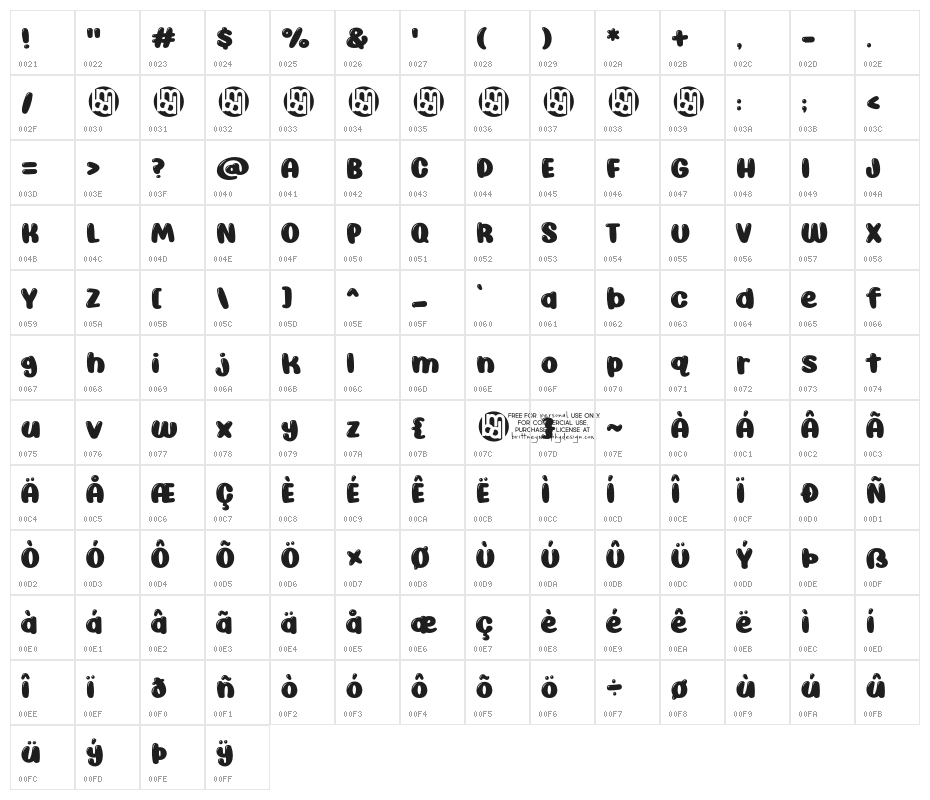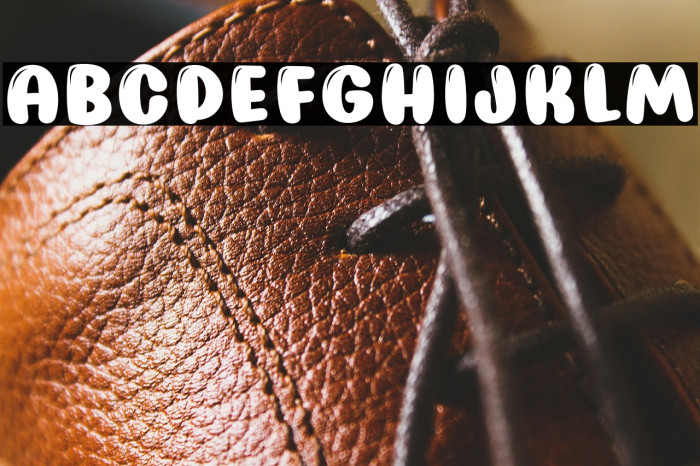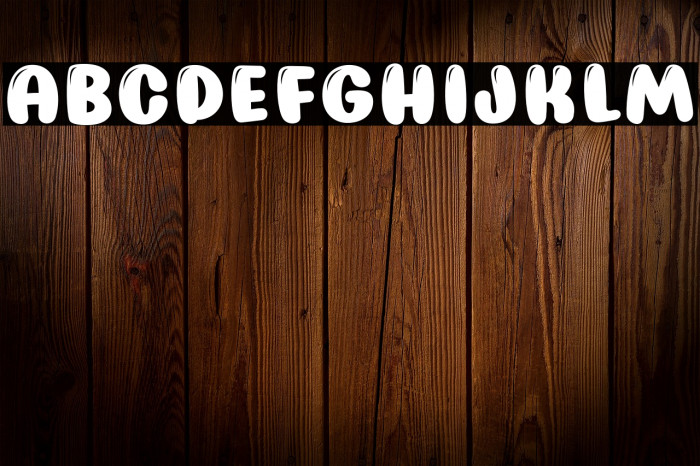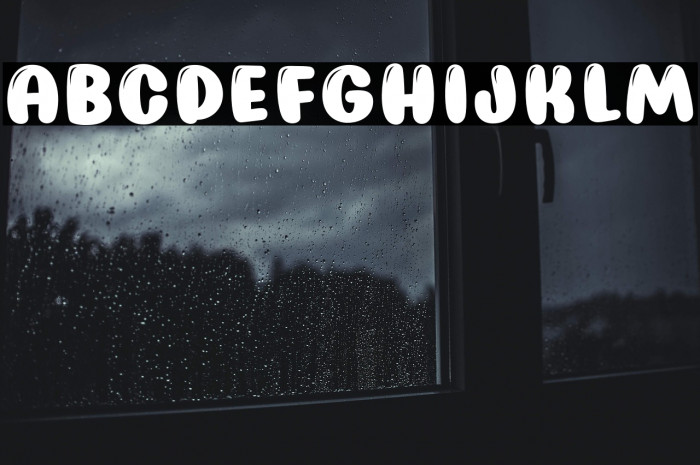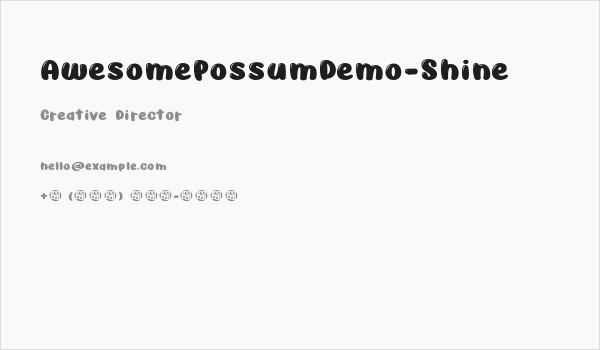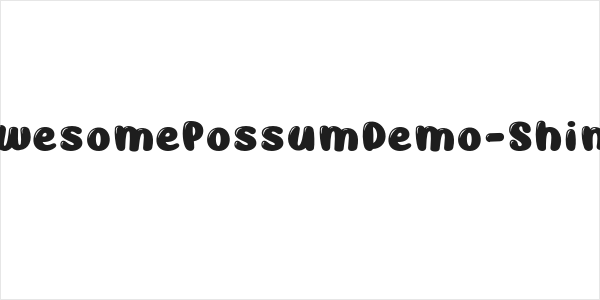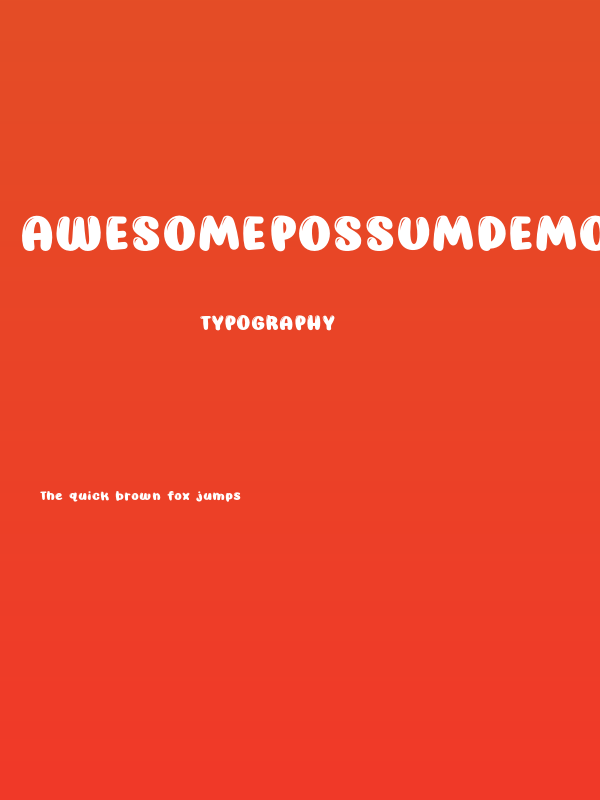
AwesomePossumDemo-Shine Font
AwesomePossumDemo-Shine Description
This font features a playful and bold design with rounded, bubbly characters that exude a sense of fun and whimsy. The letters are thick and have a slightly uneven stroke, giving them a hand-drawn appearance. The uppercase and lowercase letters maintain a consistent style, with the lowercase being slightly more compact. The numbers and special characters follow the same playful aesthetic, making the font suitable for creative and informal projects. The overall look is eye-catching and ideal for designs that require a touch of personality and flair.